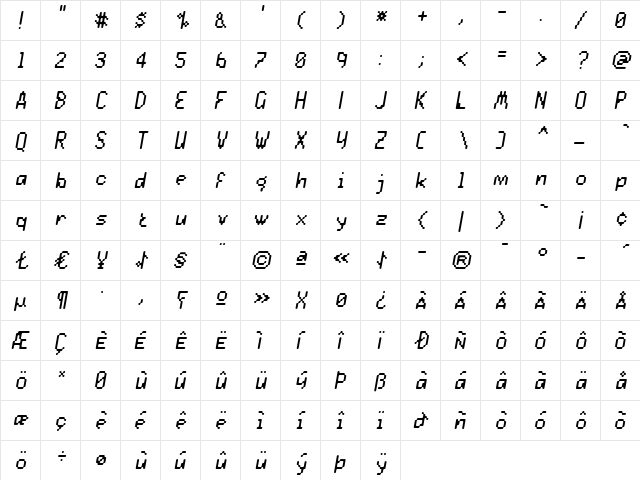
Praxis Oblique
Design Context for Praxis Typeface
Praxis takes a measured approach to typography — its balanced proportions and neutral character make it a reliable workhorse for both digital and print work. Its italic angle brings a sense of urgency and motion to the letterforms.
Pro Tip: Use Praxis for emphasis, pull quotes, and subheadings where its slanted energy can add rhythm to the layout.